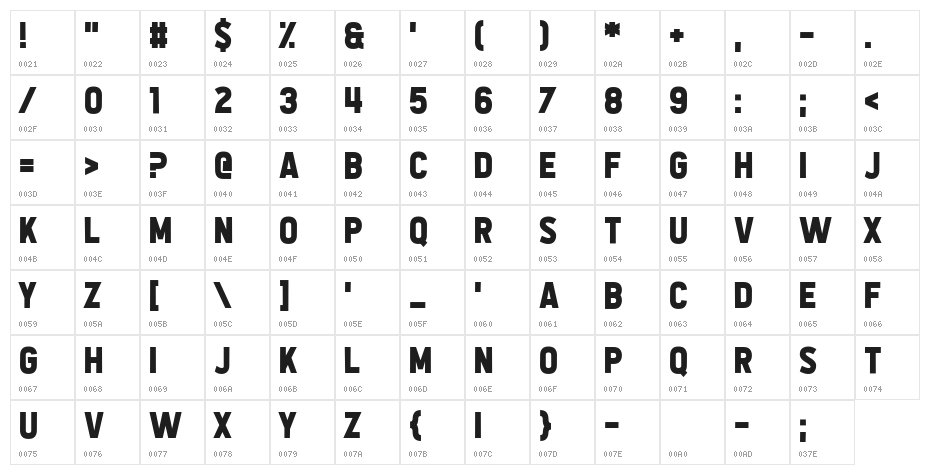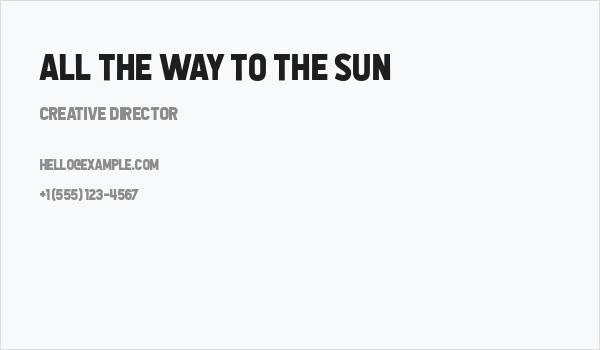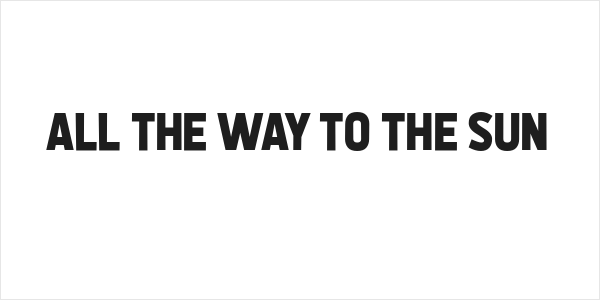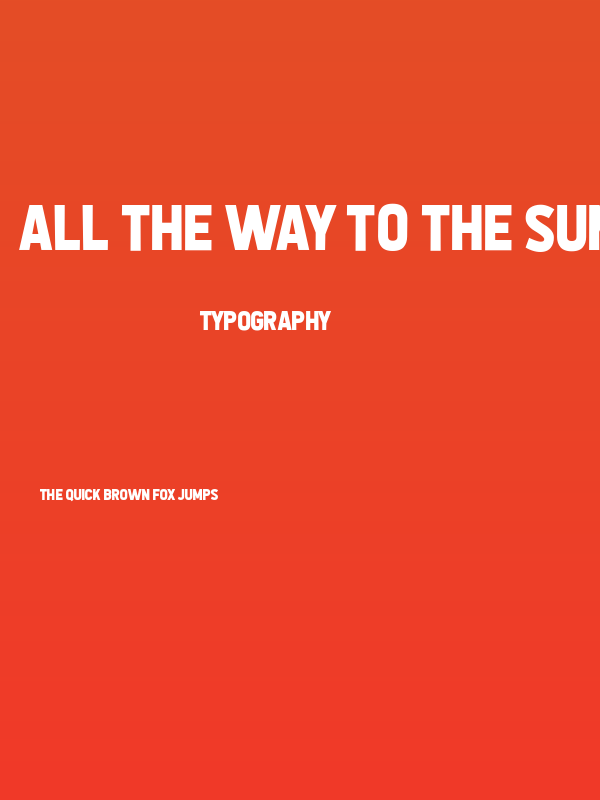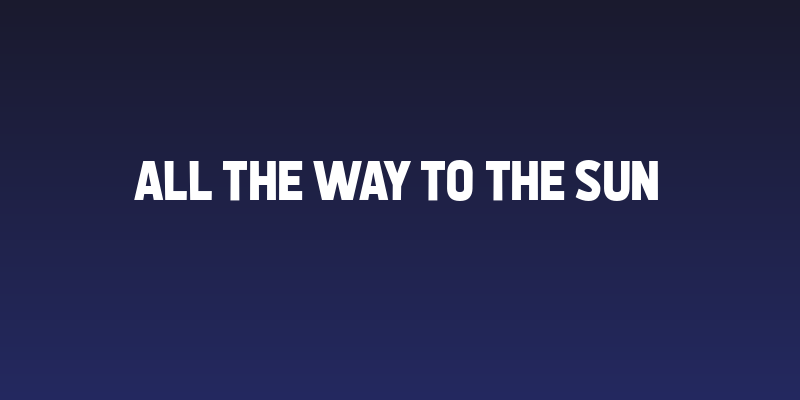
All the Way to the Sun Font
All the Way to the Sun Description
This bold and impactful typeface features strong, geometric letterforms with a modern aesthetic. The uppercase and lowercase letters are uniform in width, creating a cohesive and balanced appearance. The numerals are equally robust, maintaining the font's overall boldness. Special characters are designed with the same attention to detail, ensuring consistency across all glyphs. The font's thick strokes and minimal contrast make it highly legible, even at smaller sizes. Its clean lines and contemporary style make it suitable for a variety of design applications.
| Proposed Projects | Ideal for branding, advertising, headlines, posters, and any project requiring a strong visual presence. |